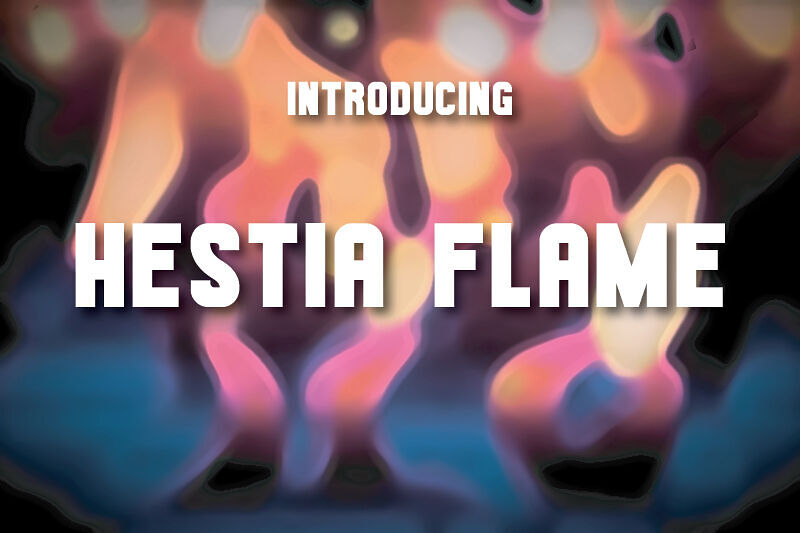
Mar 23, 2025DisplaySans SerifHestia Flame Font Hestia Flame by Sushi Hue Design is a fiery, bold typeface. Its sharp, angular letters with flame-like curves exude energy and warmth, perfect for attention-grabbing branding, posters, or digital media. Font DetailsDesigned by: Sushi Hue DesignWebsiteLicense: Free for commercial use Download Hestia Flame FontFile size: 31.35 KBCreated: March 23, 2025Updated: March 23, 2025 Download Explore similar fonts Kaluk Sans Font Family Ultra Player Font Dreamscape Font Coluna Font Headliner Font ZT Hakimi Font Family # Basic# Bold# Condensed# Contemporary# Display# Modern# Poster# Strong